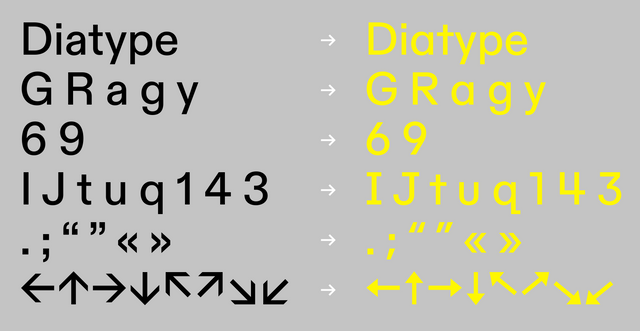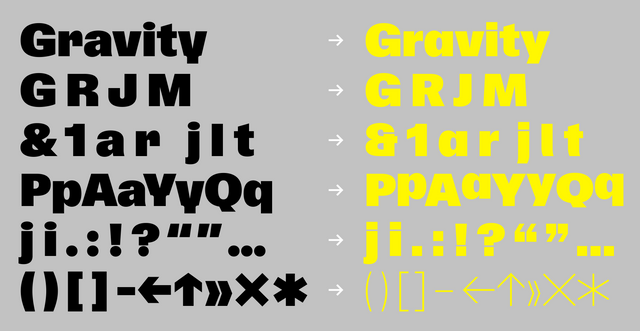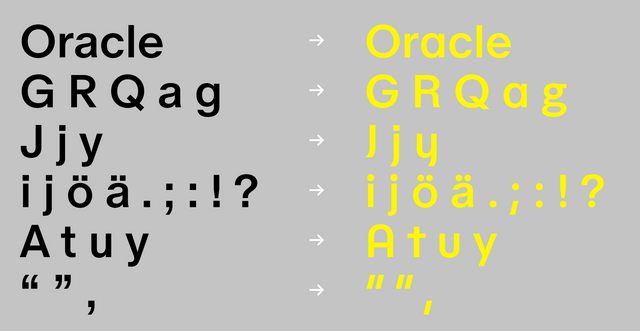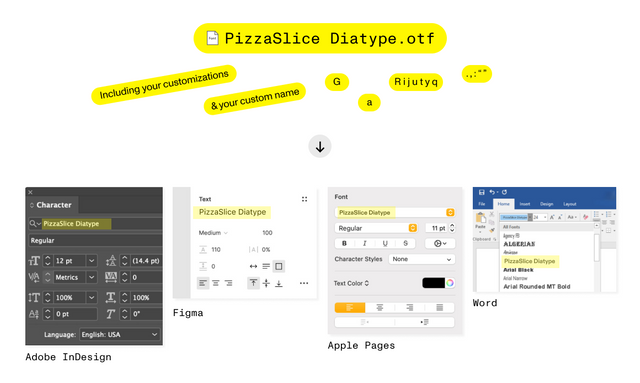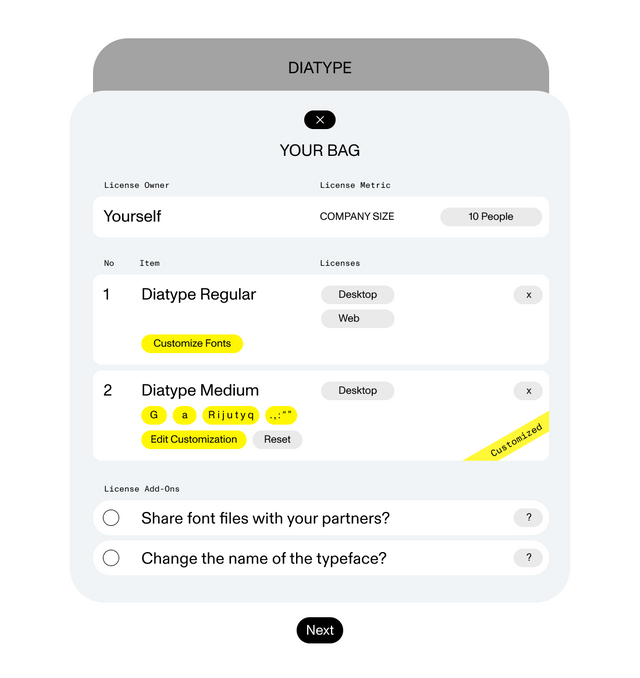
The Dinamo Font Customizer™ ⚙️
A new tool is born: You can now customize our fonts as you purchase them, for free.
We believe that customizing fonts should not be an exclusive thing that people need to pay lots of money for. Everyone should have easy access to modifying their own font toolbox.
Over the years, we’ve received numerous emails from customers asking for small changes to their fonts. Mostly, designers fall in love with some of the alternates included in our designs, and they reach out to us because they’d like to make them their new font’s default. In response to this regular inquiry, the Dinamo Font Customizer™ makes font customization free, quick, and easy for everyone who purchases our typefaces.
Swap the G. Stop, no, swap the a. Ohhh, swap them both!!
Select → Customize → Buy
After choosing your typeface, and right before completing the checkout process, you can launch the Customizer and select which alternate characters you’d like to make your new font’s default.
Say you’re buying Diatype and would like the double story “a” as your default rather than the single story “a”: You can now simply select that option before checkout and our website will generate personalized font files for you on the fly. We like to think of it as just as easy as customizing your own trainers on the web portals of personalizable trainer brands.
1) Select your typeface
2) Select your styles
3) In your bag, click the yellow “Customize Fonts” button
4) Select the alternates you’d like to make your new defaults
5) Your typeface is customized!
Tip: You don’t have to customize individual font styles one by one. You can also customize complete families, our Essential Packs, or bundles containing many font styles in one go!
Next, Add Your Own Font Name
One more thing! You can combine the Dinamo Font Customizer with our Custom Font Naming tool to create bespoke font files containing both your preferred alternates and personalized name. When you install the font, it’ll appear in your menu with your chosen name and chosen default characters in all design applications (even WORD 😳).
Think about it: You can customize a typeface with your client and even attach their name to it. This makes it dead simple for them to then distribute their custom font internally and make sure everybody in their company is using the right one. And it feels really great! Call it the Yassification of font file management.
6) Select the Custom Font Naming tool and 7) Add your name
8) Voilà
Re-Customizing Your Fonts
Once you create and download your custom font file settings, you can always log in to your User Area on our website and re-customize them whenever you like, if you decide to change your default settings (and switch to, say, square punctuation instead of rounded). Think of Kanye, who releases an album and later goes back in, modifies, improves, and republishes it again.
Hold my espresso martini: You can even do this with fonts you purchase from us back in the day! Just log into your user area to breathe new life into them.
Overview on all your licensed fonts…
…which you can re-customize and re-generate at any time
Alternate Characters
80% of our fonts have alternate characters—and we’ll be making more in the future. Below, we’ve highlighted a few options that you’ll now be able to choose between.
You can discover them in detail on a typeface’s page. It’s nice to see how much you can change the flavor just by swapping a selection of characters.
Oracle will be published in Summer ’22
No Parents, No Rules!
We’re no longer casting fonts into expensive metal; software lets us make fonts with as many alternates as we like baked inside. For us, having this flexibility in mind feels like a modern way of working.
At Dinamo, we have lots of people involved in designing a single typeface, which means we tend to have many differing ideas for differing characters in the room. In the past, most got killed, and we’d publish only a small selection. Sad. Today, the Dinamo Font Customizer gives us a great excuse to leave all alternate darlings inside a font so that our customers have more to choose from. Now, everybody is happy! 😁
New beginnings!
Goodbye to activating features in Adobe one by one
In the past, if you wanted to customize one of our fonts in this way, you’d have had to get in touch with our team, describe your wish, and then we would have had to agree on a price for creating new font files for you. It’s fine, we even made good money from it! However, we believe that in our digital world, personalization should be easy and embedded straight into our web store, as a free service.